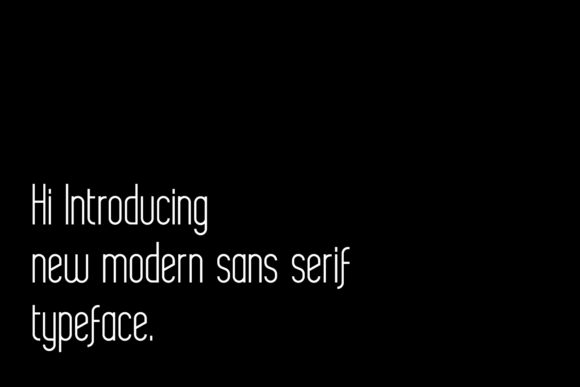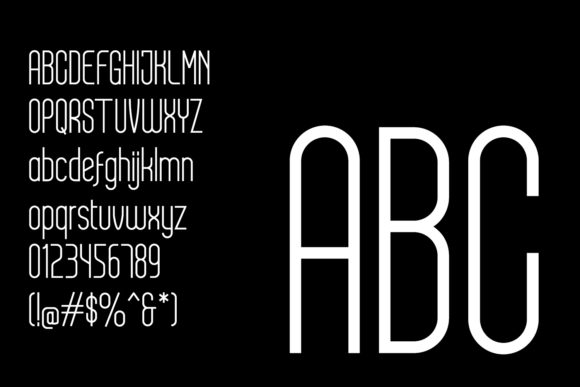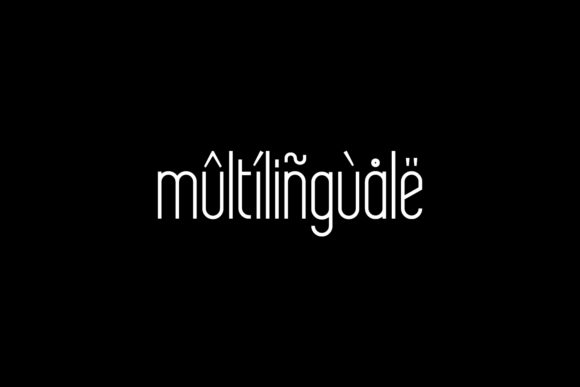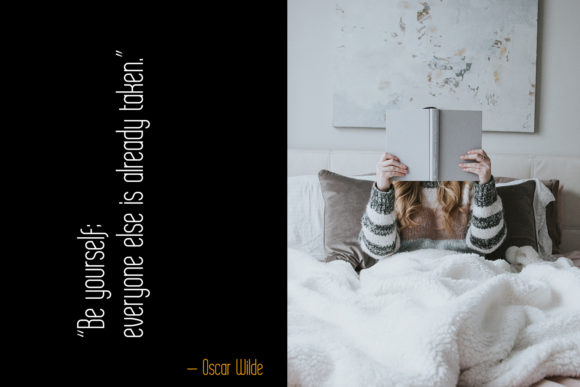
Introduction to Delvon Thin Font
Have you ever found yourself stuck in the midst of a creative project, desperately searching for the perfect font to bring your vision to life? I’m sure many designers can relate to this feeling. But what if I told you that there’s a font that’s not only elegant but also versatile enough to suit a wide range of designs?
Meet the Delvon Thin Font, a minimal yet sophisticated sans serif font that’s sure to become your go-to design resource. With its neat and simple style, this font is perfect for any creative project, whether you’re working on a personal blog, a marketing campaign, or even a simple social media post.
Key Features of Delvon Thin Font
- High-quality design resource ideal for creative projects, offering a unique and stylish aesthetic.
- Delivered in a transparent background format, allowing for seamless integration into various design elements.
- Features a clean and minimalist design, making it perfect for use in logos, typography, and other visual elements.
- Unique characteristics include its thin, delicate lines and subtle nuances, adding a touch of sophistication to any design project.
Honest Review: Delvon Thin Font
I recently stumbled upon the Delvon Thin Font while searching for a high-quality design resource for a creative project. As a designer, I’m always on the lookout for unique and versatile fonts that can elevate my designs. The Delvon Thin Font did not disappoint.
- ✨ High-quality design: The font is crisp and clean, making it perfect for a variety of applications, from logos to typography-based designs.
- ✨ Versatile: The font comes in a range of weights, allowing me to experiment with different styles and moods in my designs.
- ⚠️ Limited language support: The font only supports a limited number of languages, which may be a concern for designers working on projects that require multilingual support.
- ⚠️ No transparent background option: While the font itself is high-quality, it doesn’t offer a transparent background option, which may limit its use in certain design applications.
Overall, I’m impressed with the Delvon Thin Font. Its high-quality design and versatility make it an excellent addition to any designer’s toolkit. While it has some limitations, I believe it’s a valuable resource for designers looking for a unique and creative font.
Delvon Thin Font
To get the most out of the Delvon Thin Font, use it in conjunction with other design elements to create a cohesive and visually appealing design. Experiment with different font sizes and styles to add depth and interest to your project.
The Delvon Thin Font is ideal for a variety of creative projects, including business cards, brochures, and website headers. Its high-quality design and transparent background make it perfect for creating modern and professional designs.